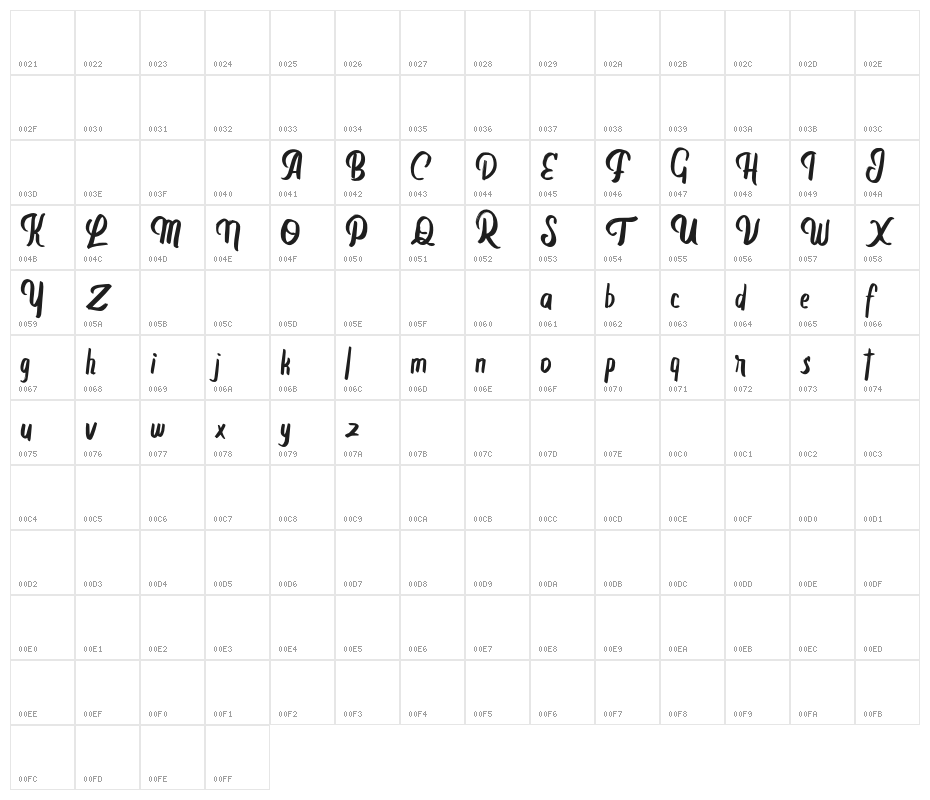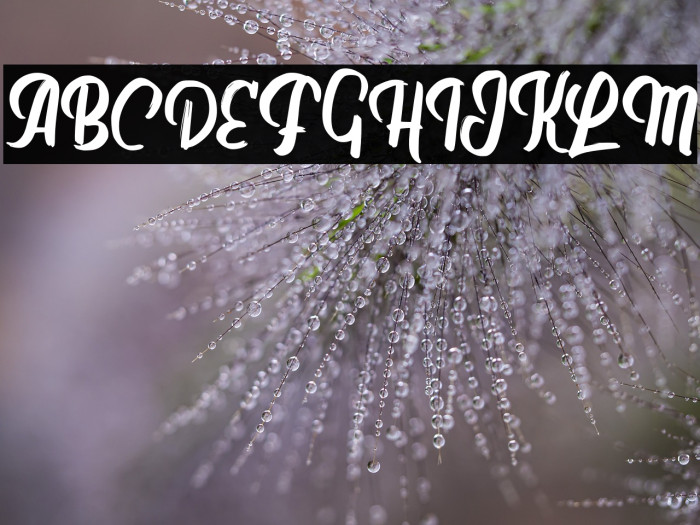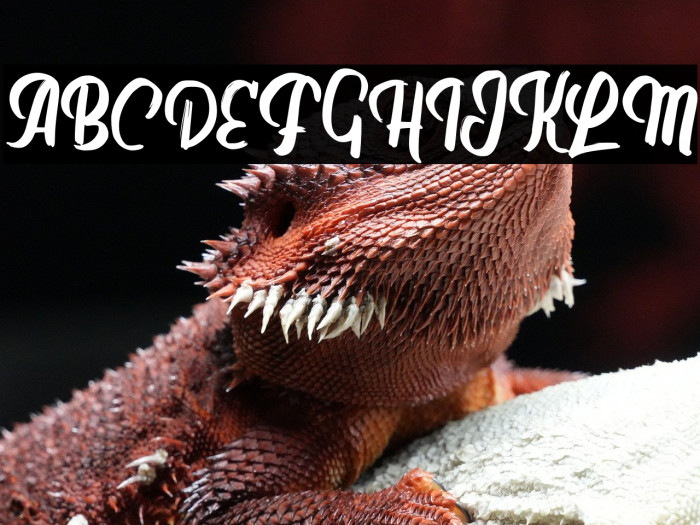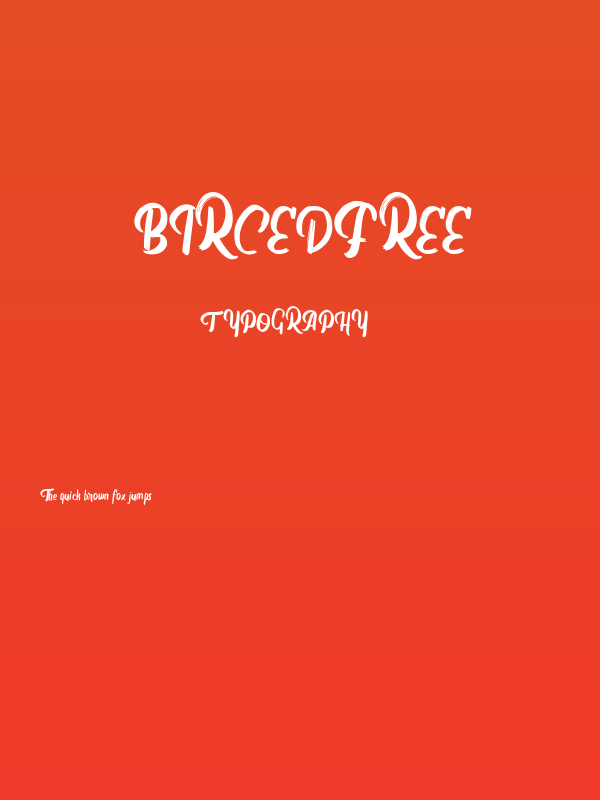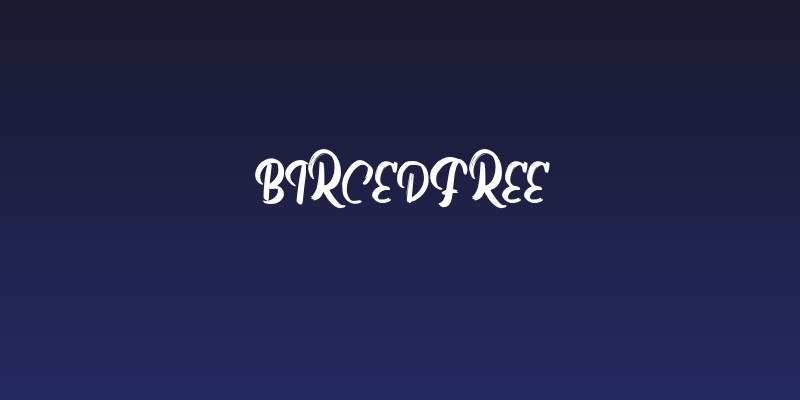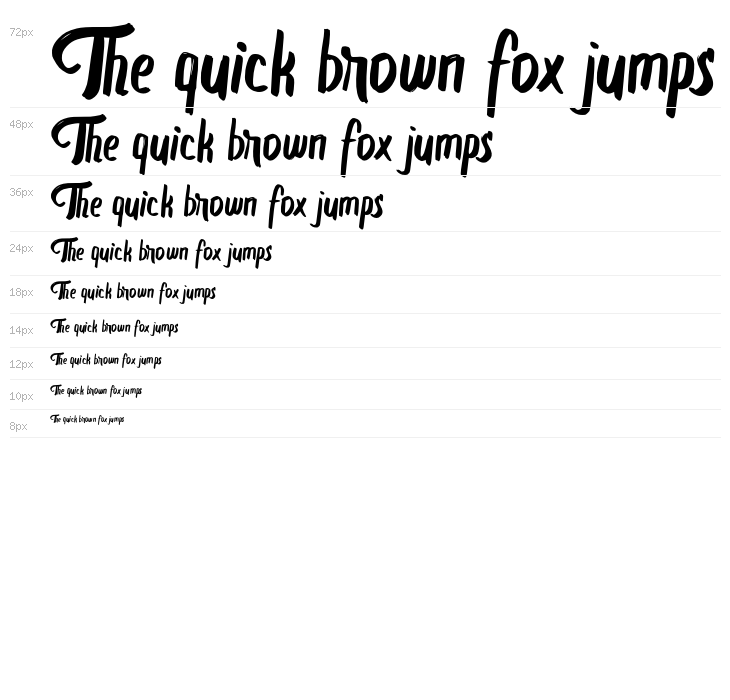
BircedFREE Font
BircedFREE Description
This font features a bold and expressive script style with a playful and dynamic appearance. The letters are characterized by their flowing, cursive forms, which give a sense of movement and energy. The uppercase letters are particularly ornate, with exaggerated curves and flourishes that add a decorative touch. The lowercase letters maintain a consistent style, with smooth connections between strokes, enhancing the handwritten feel. The overall design is both artistic and legible, making it suitable for creative projects that require a personal and informal touch.
| Use Case | Logos, Headlines, Invitations |
| Proposed Projects | Ideal for greeting cards, invitations, logos, and branding materials that seek a personal and artistic touch. |